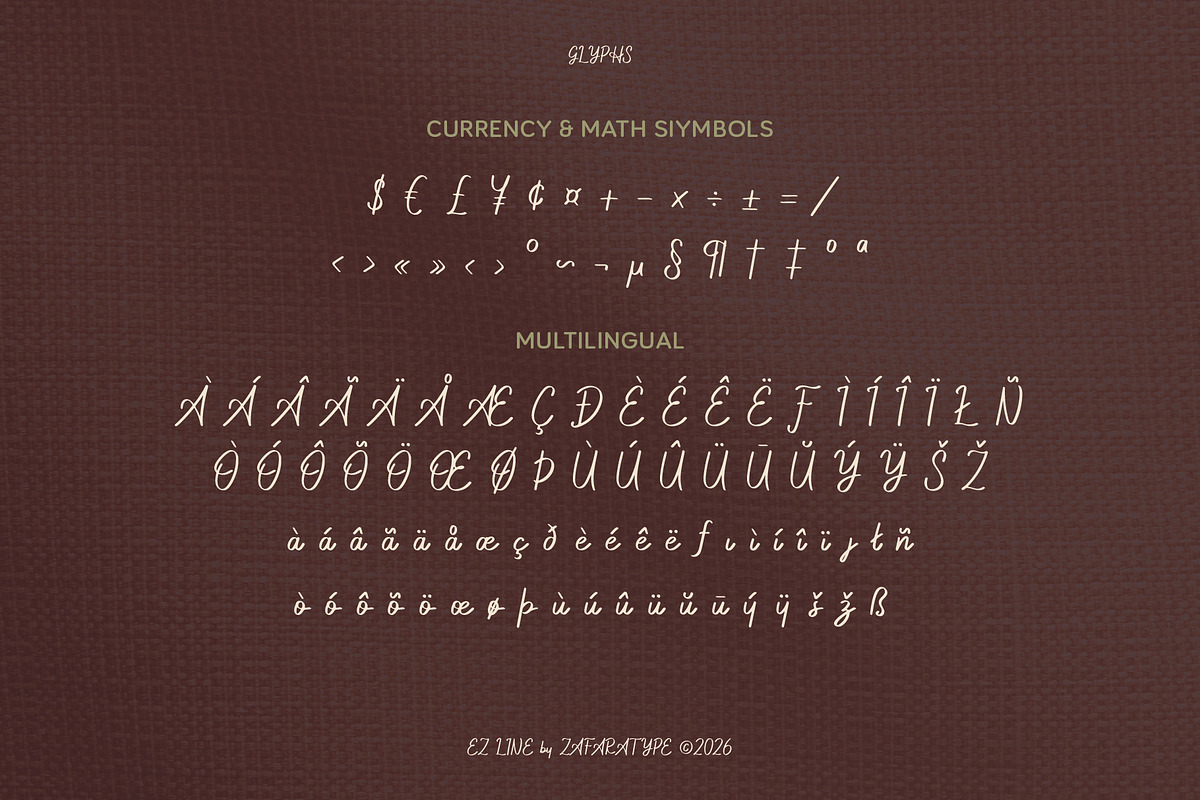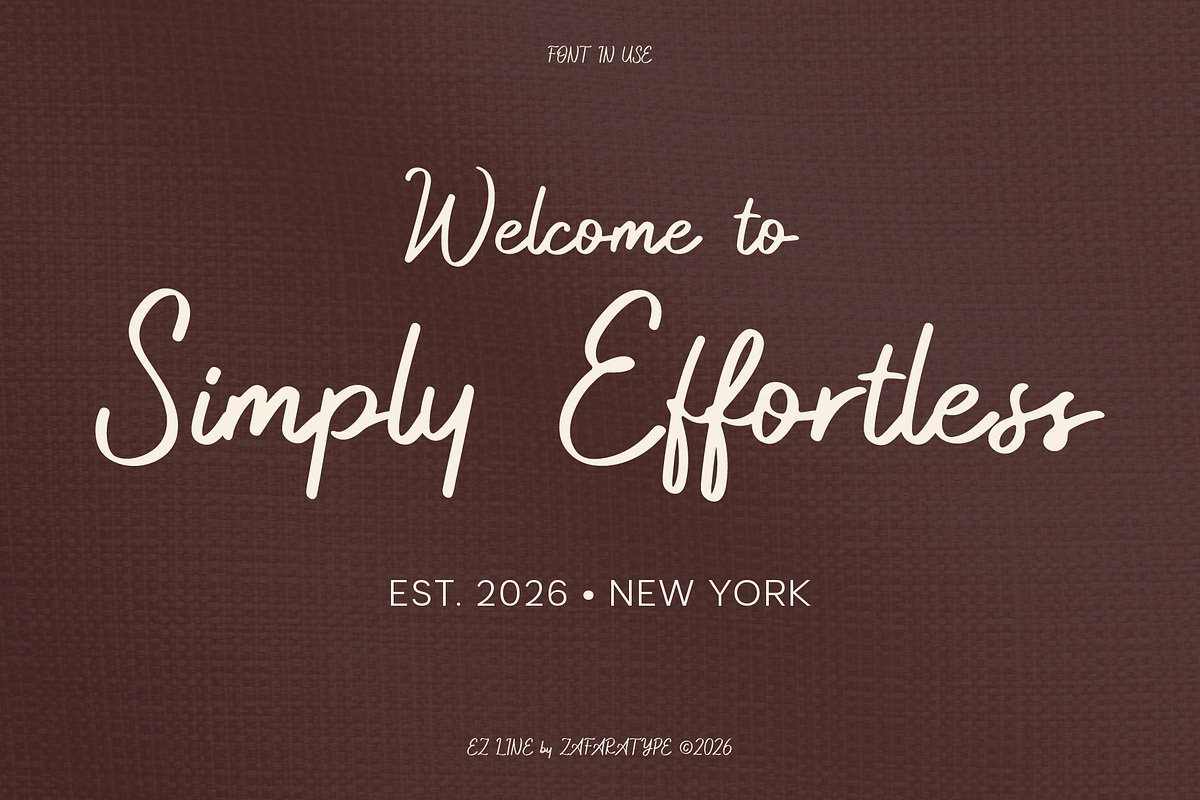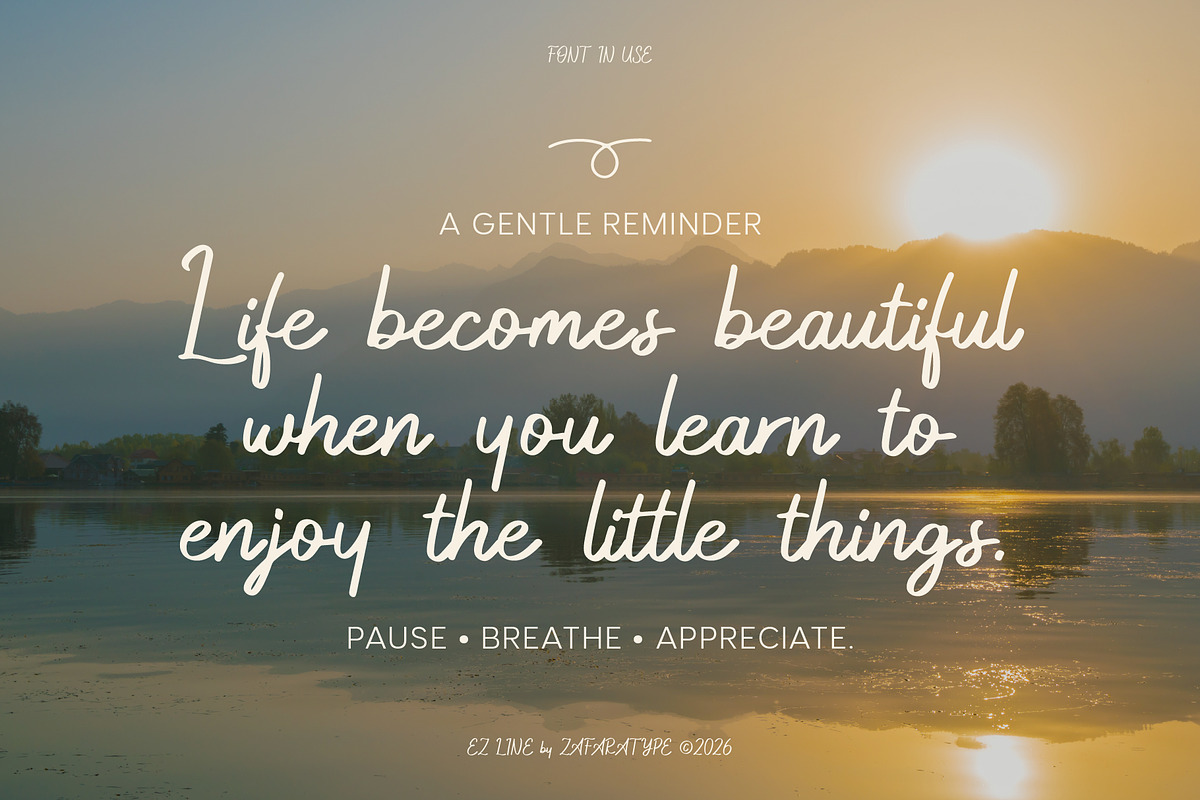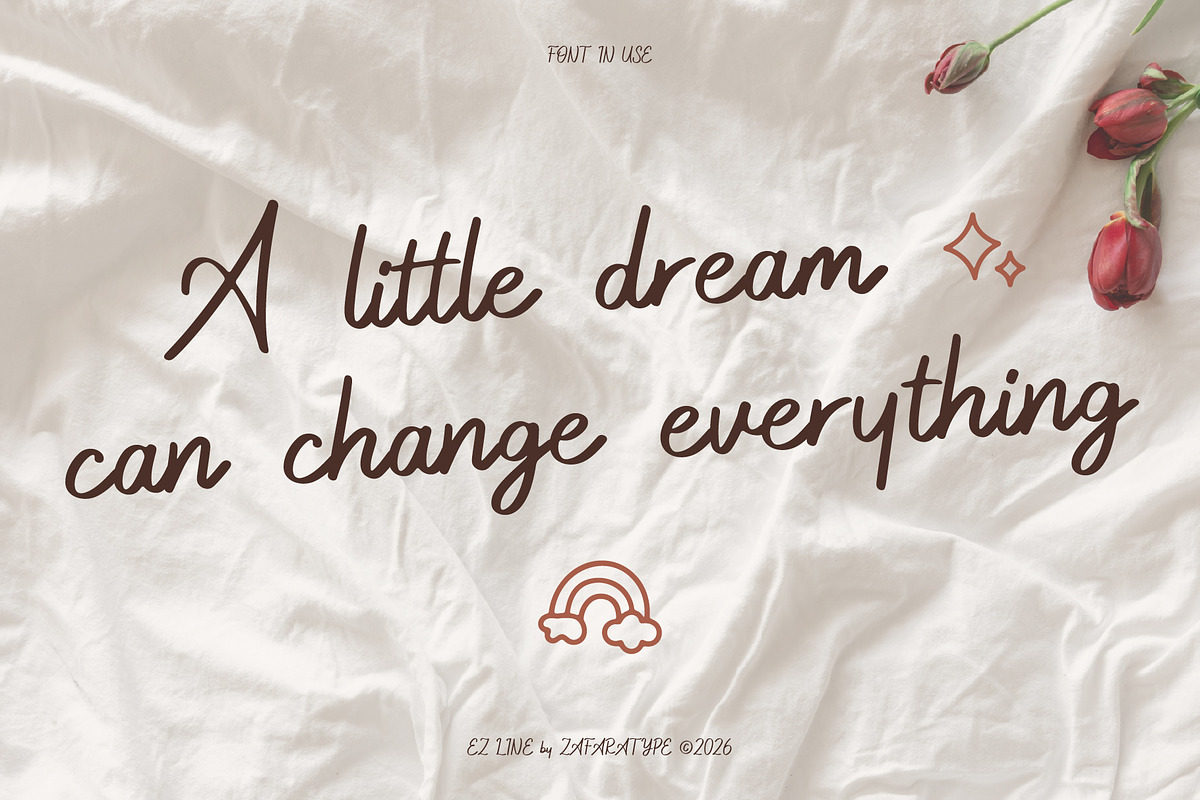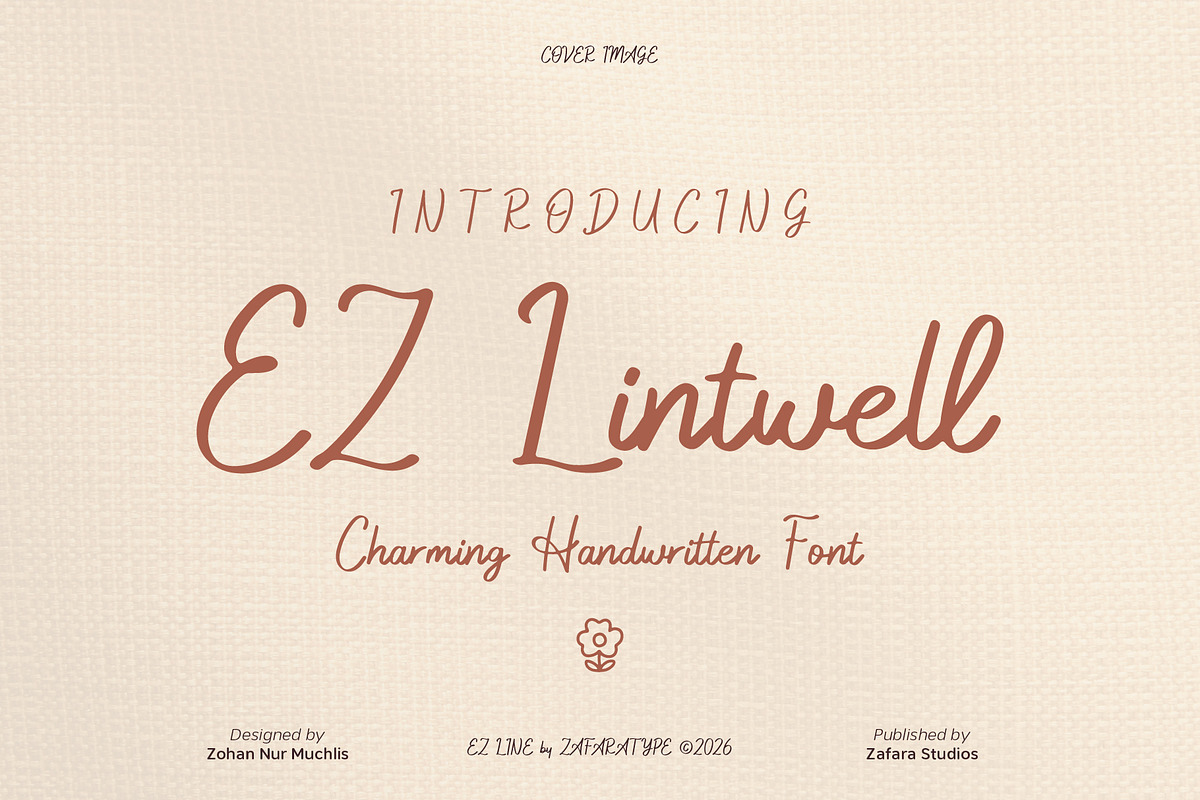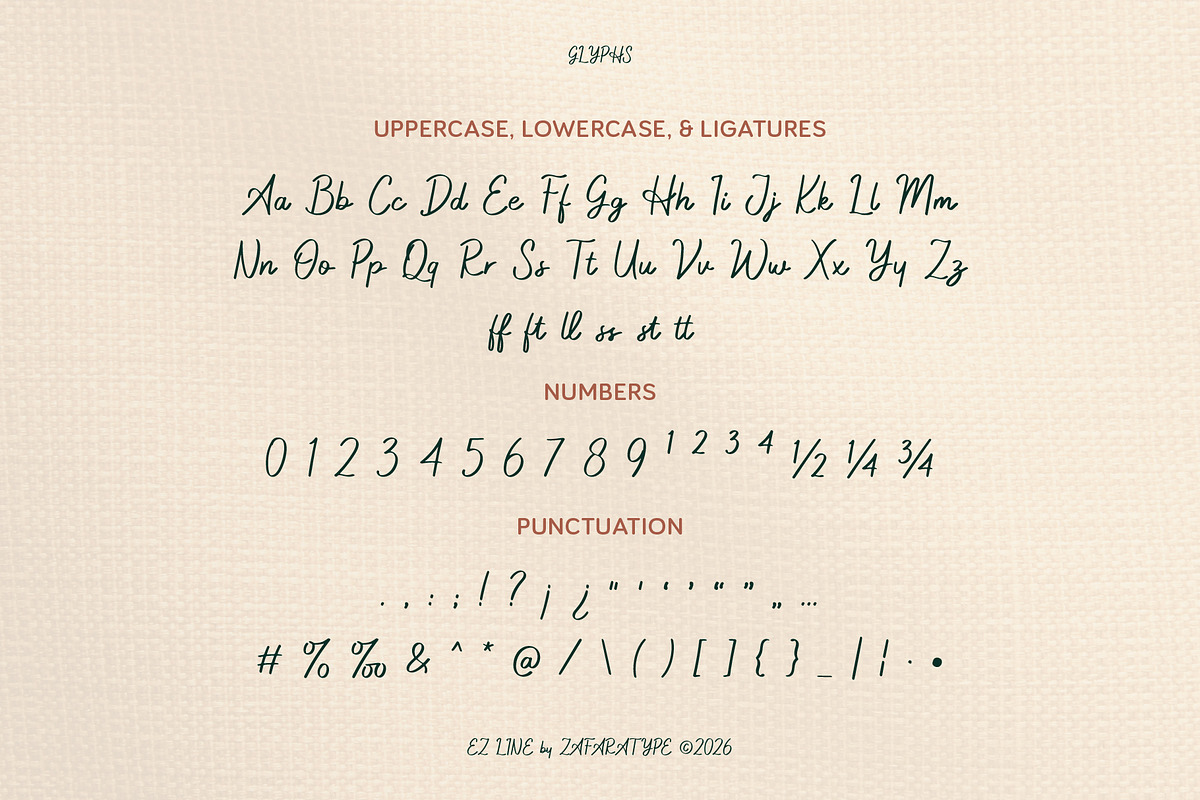
EZ Lintwell
EZ Lintwell is a charming and stylish handwritten font that blends smooth, flowing strokes with a relaxed and expressive personality. Featuring natural letterforms, playful curves, and confident handwritten details, it brings a warm and personal touch to your designs while keeping every word effortlessly flowing and visually appealing.
Designed to capture the charm of modern, expressive handwriting, EZ Lintwell is perfect for branding, invitations, greeting cards, quotes, social media, packaging, logos, fashion designs, stationery, and other creative projects. Whether you're creating something playful, stylish, or heartfelt, it adds a natural handcrafted touch that makes every design feel more personal and memorable.
The details:
249 glyphs: Uppercase, lowercase, ligatures, numbers & punctuation, symbols & accents, multilingual support
25 languages: Afrikaans, Albanian, Basque, Catalan, Danish, Dutch, English, Estonian, Faroese, Filipino, Finnish, French, Galician, German, Icelandic, Indonesian, Irish, Italian, Malay, Norwegian Bokmål, Portuguese, Spanish, Swahili, Swedish, Zulu